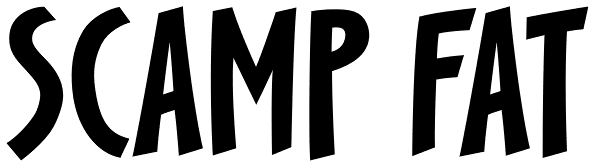
Scamp
The vivacity that you find in this light-hearted design began with paper cut-outs designed for use in all sorts of presentations, from animated movie titles, sometimes in flashing, reversing color, to little notes and cards. Maintaining and...